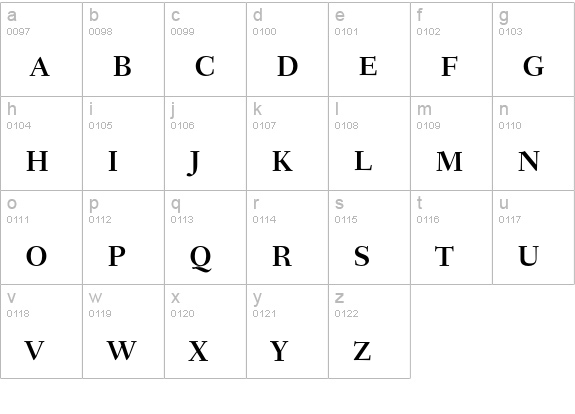
Fairfield LH 55 Medium Small Caps & Old Style Figures Font Details
Fairfield LH 55 Medium Small Caps & Old Style Figures is a balanced, medium-weight variant in the Fairfield typeface family \xE2\x80\x94 well suited to sub-headlines, navigation, and balanced editorial work.
Fairfield LH 55 Medium Small Caps & Old Style Figures is a classic and elegant font that exudes sophistication and professionalism. With its medium weight and small caps design, this font is perfect for creating refined and timeless designs. The old style figures add a touch of vintage charm, making this font versatile for a wide range of projects. Best of all, Fairfield LH 55 Medium Small Caps & Old Style Figures is freely available to download at FontsMarket.com. Whether you're working on a branding project, editorial design, or any other creative endeavor, this font will elevate your work with its timeless appeal and versatility. Add a touch of elegance to your designs with Fairfield LH 55 Medium Small Caps & Old Style Figures today.